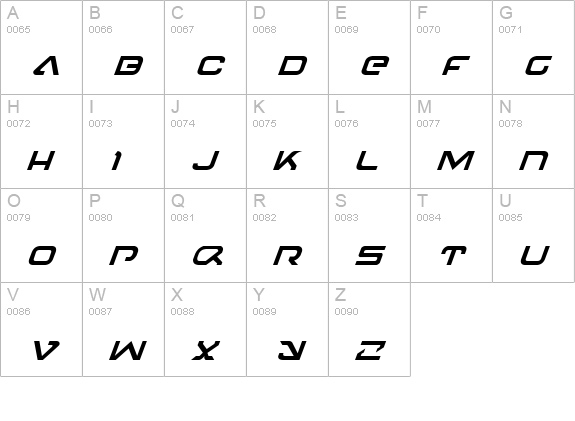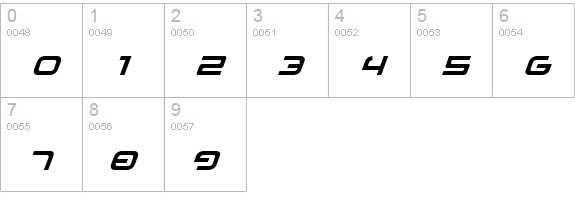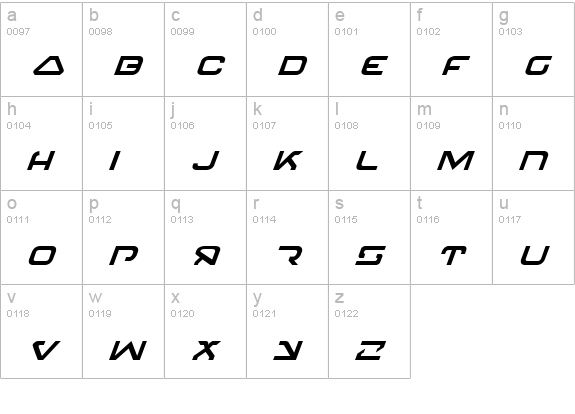
4114 Blaster Italic is a distinctive, italic variant in the 4114 typeface family \xE2\x80\x94 well suited to design and typography projects.
4114 Blaster Italic font is a sleek and modern typeface that exudes energy and dynamism. Its italic style adds a touch of sophistication and flair to any design project. This font is perfect for branding, advertising, and display purposes where a bold statement is needed. What sets 4114 Blaster Italic font apart is not only its striking appearance but also its accessibility. The best part is that this font is completely free to download at FontsMarket.com. This means that you can add this eye-catching typeface to your collection without any cost, making it a valuable resource for designers and creatives looking to elevate their projects. Download 4114 Blaster Italic font today from FontsMarket.com and unleash its power in your next design endeavor.